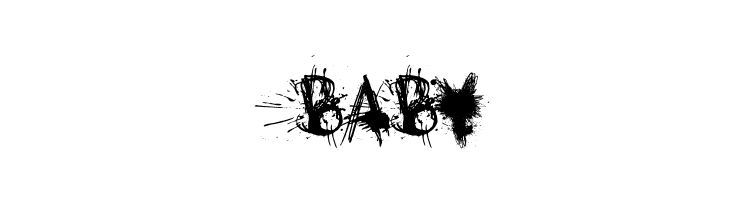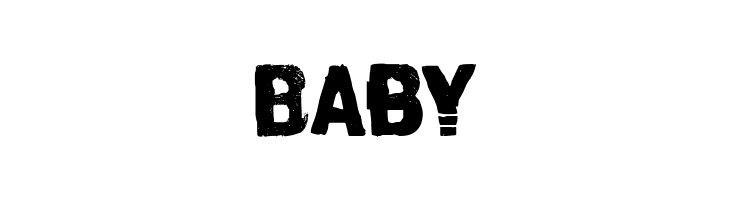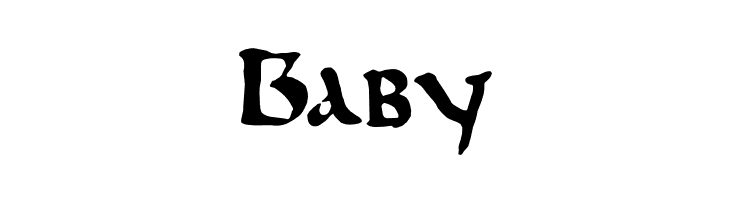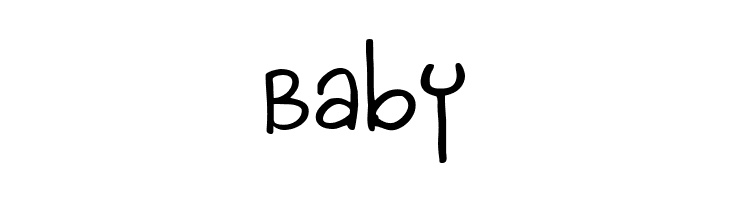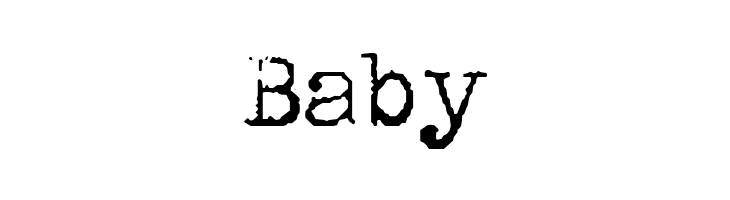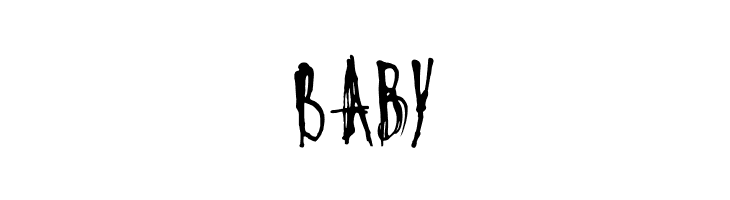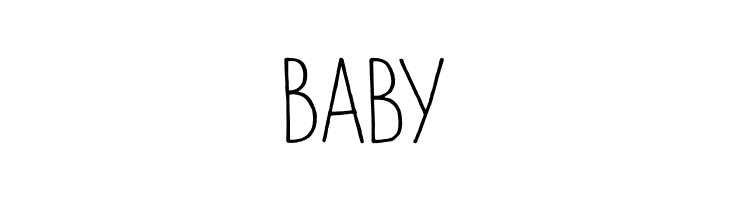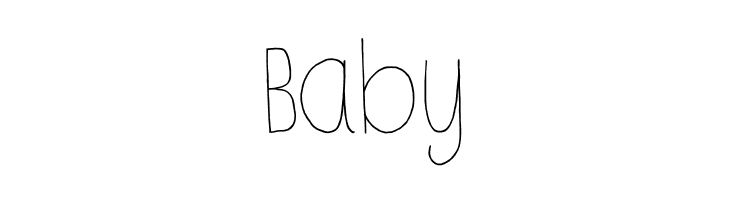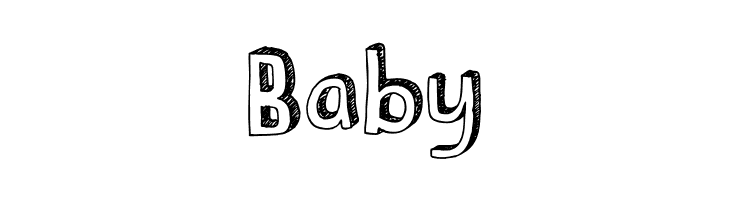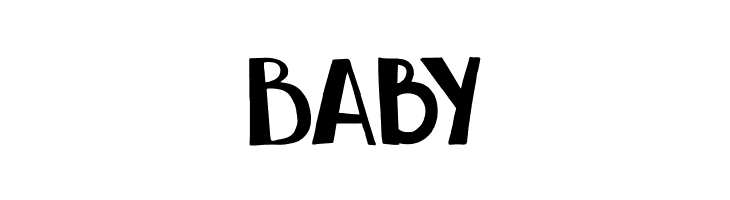
A playful, hand-drawn font with tall, narrow characters and whimsical symbols.
A chaotic, distressed font with jagged strokes and splattered ink effects.
A medieval-inspired font with calligraphic, decorative elements.
A bold, distressed font with a grunge texture and rugged appearance.
A playful, bold, and rounded font with a hand-drawn, cartoonish style.
A bold, geometric font with sharp angles and a modern style.
A hand-drawn, energetic font with tall, narrow characters and irregular strokes.
A distressed, grunge-style font with a typewriter-like appearance.
A whimsical, hand-drawn font with elongated, irregular strokes and playful elements.
A playful, bold font with rounded, thick strokes and a whimsical touch.
A playful, hand-drawn font with a 3D, cartoonish style.
A playful, handwritten font with tall, narrow letters and a whimsical style.
A playful, handwritten font with tall, narrow characters and a whimsical style.
A playful, hand-drawn font with tall, narrow letterforms and a whimsical style.
A playful, hand-drawn font with a whimsical and dynamic style.
A playful, handwritten font with tall, narrow letters and consistent stroke width.
A whimsical, hand-drawn font with tall, narrow letters and a natural, sketch-like style.
A bold, playful 3D font with a hand-drawn, cartoonish style.
A decorative, hand-drawn font with textured, artistic elements.
A playful, hand-drawn font with bold, irregular strokes and a whimsical style.
A playful, hand-drawn font with bold outlines and a whimsical style.
A bold, hand-painted style font with dynamic, brush-like strokes.